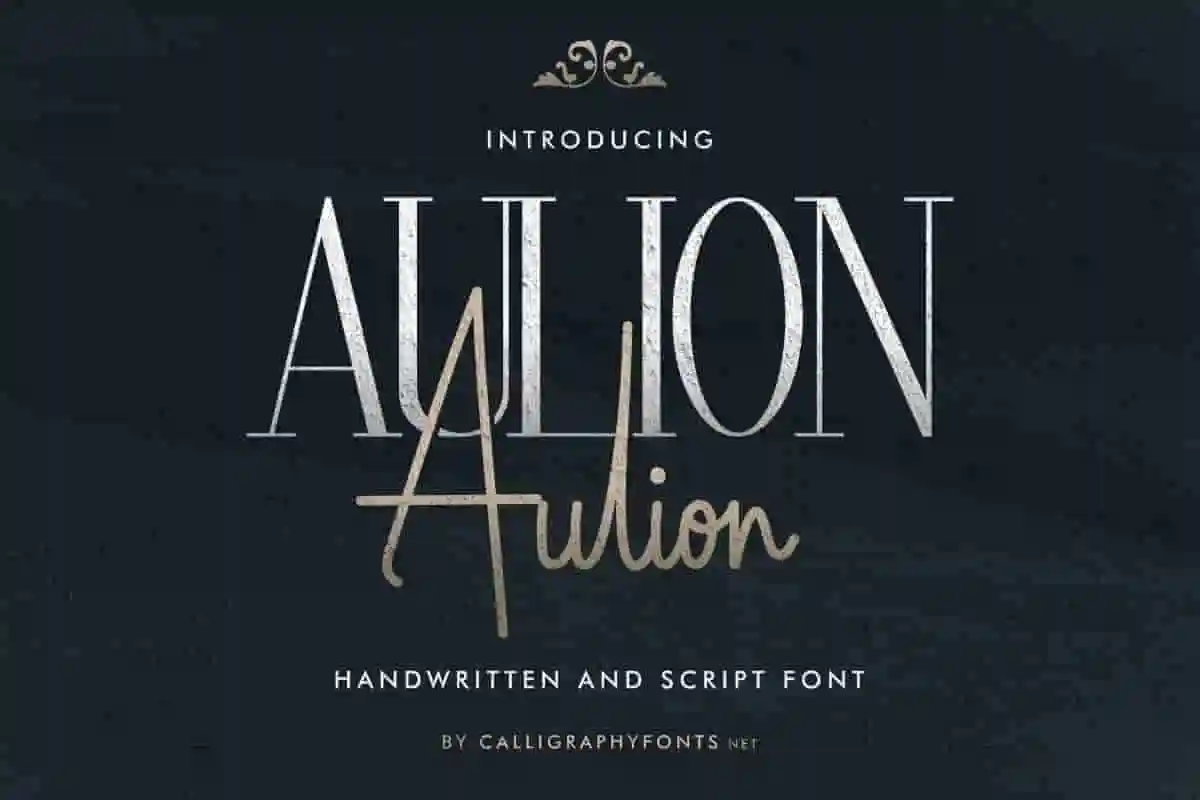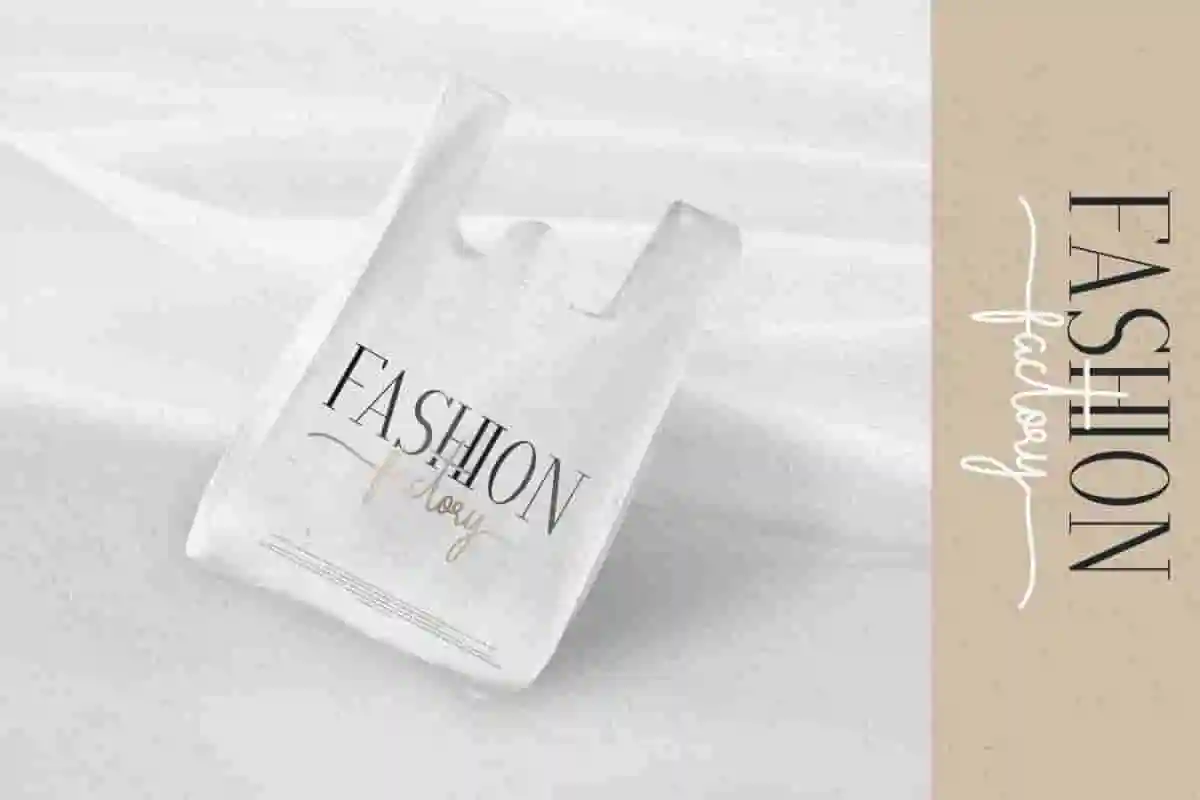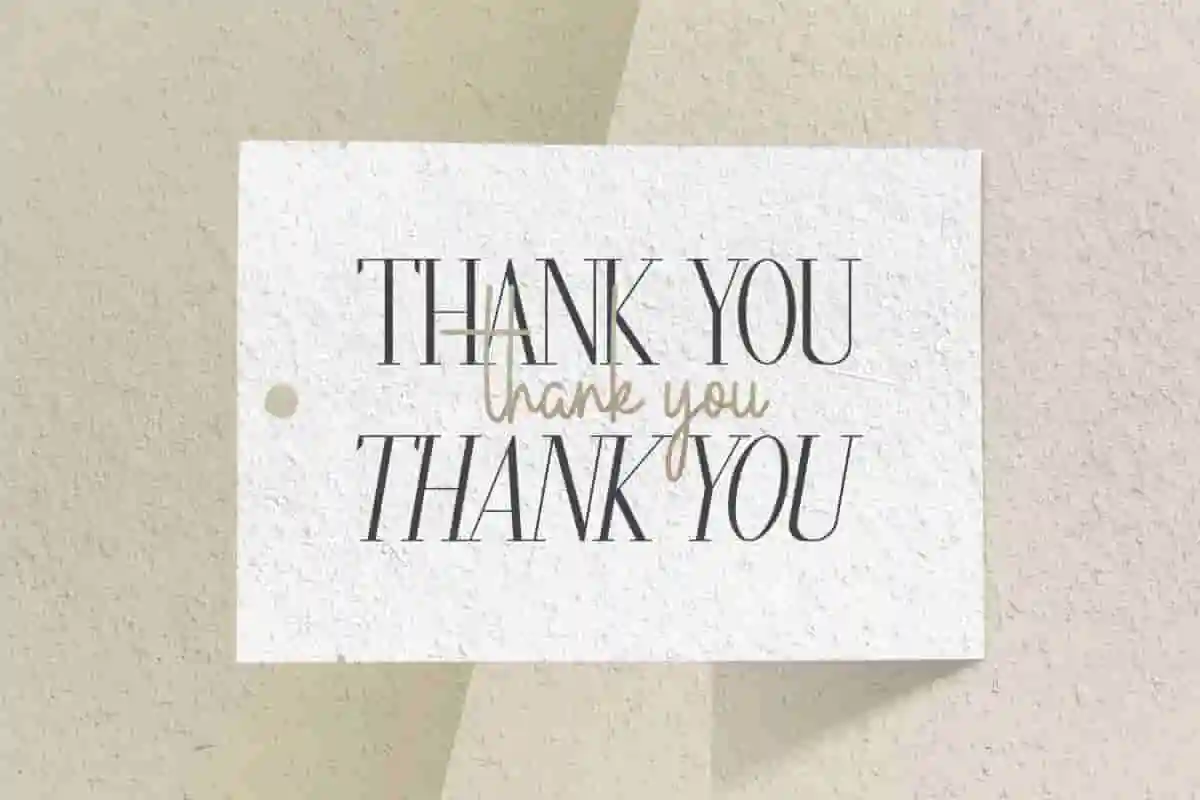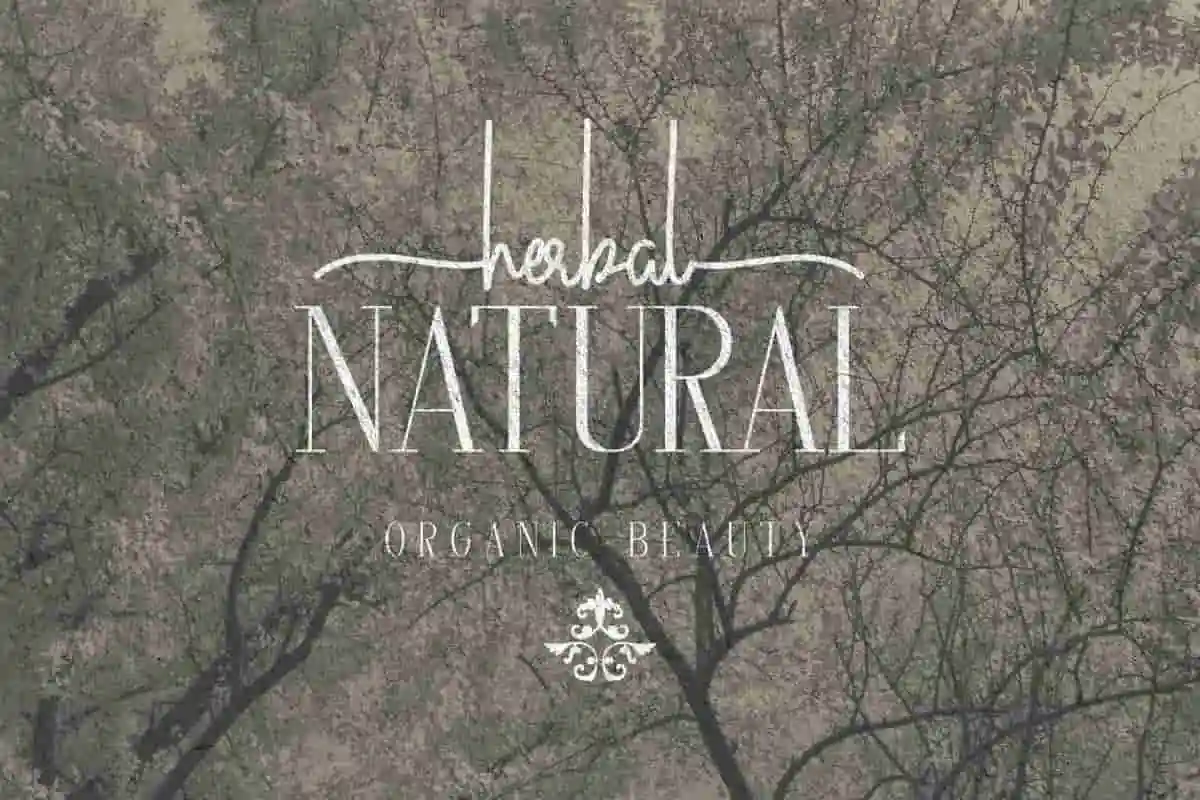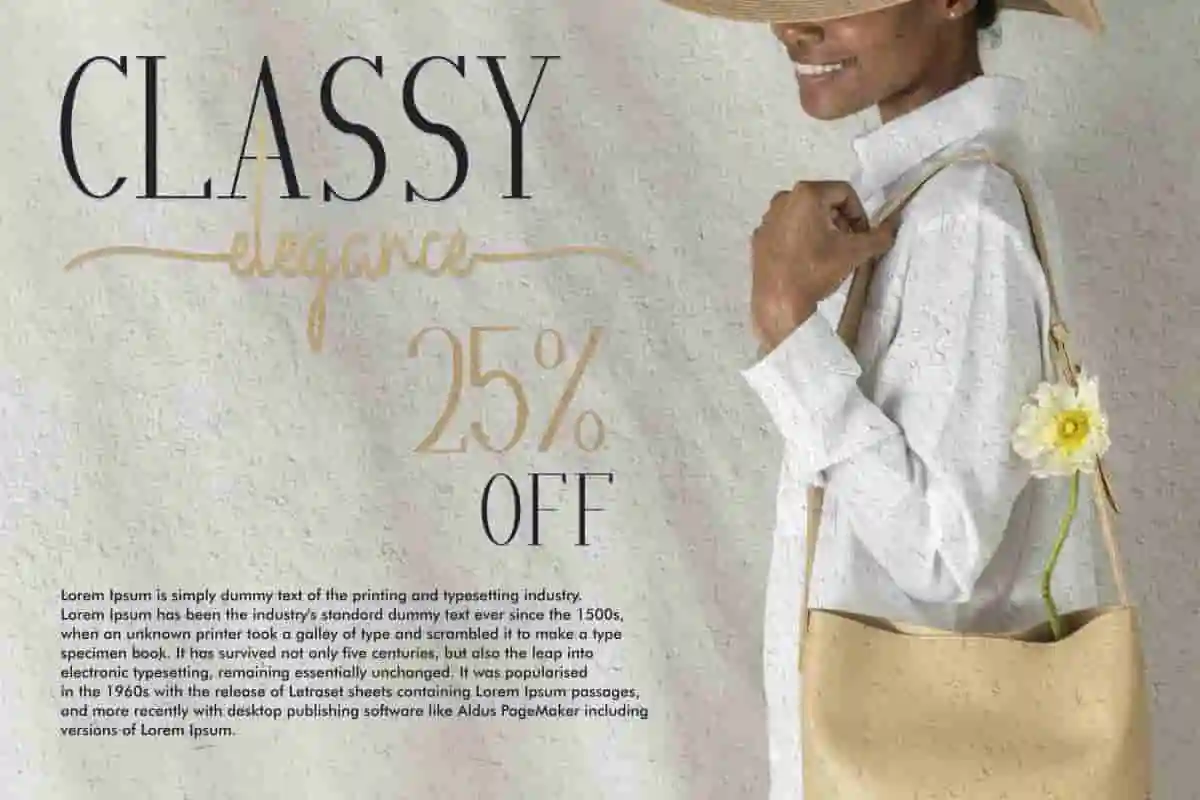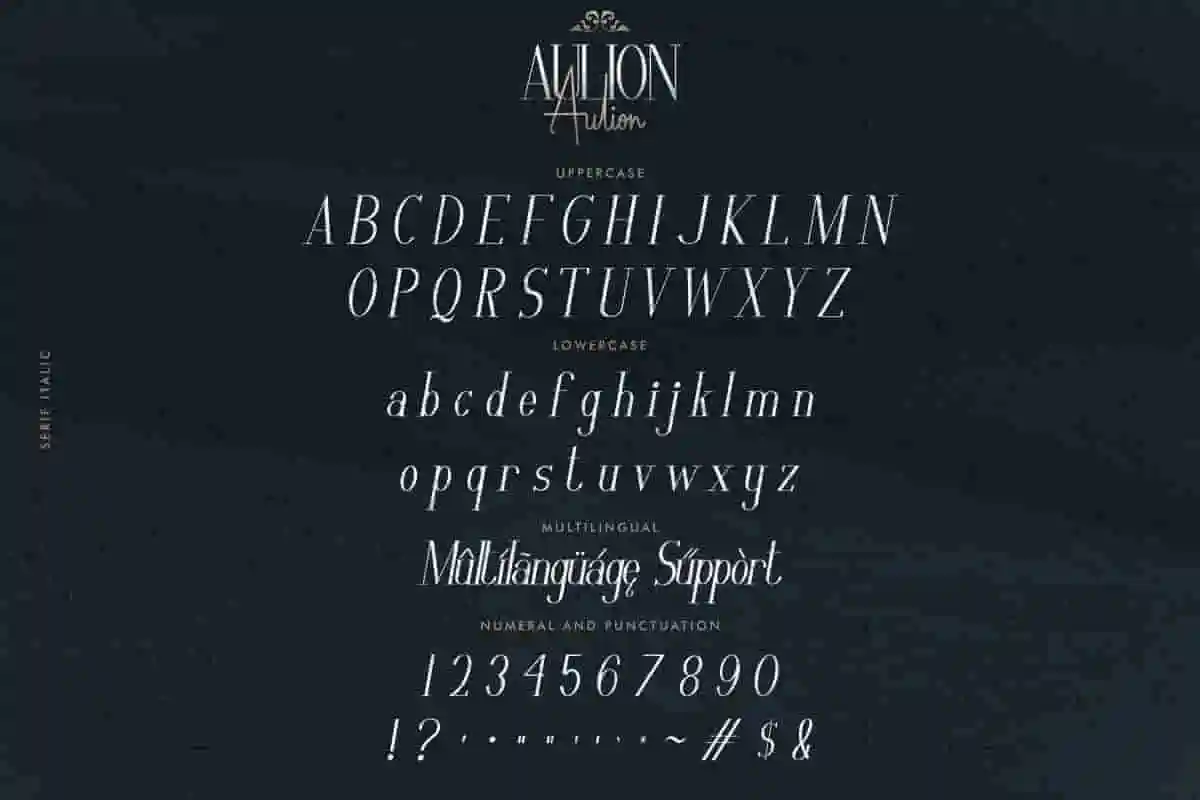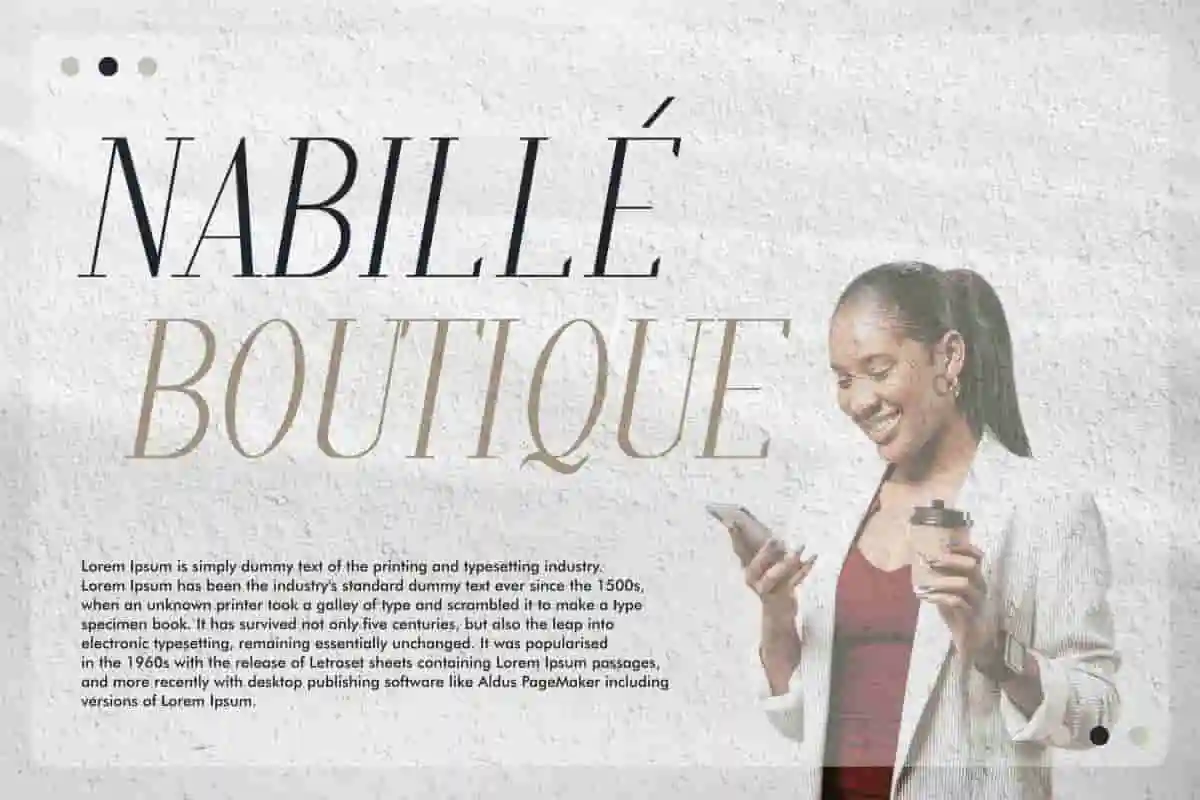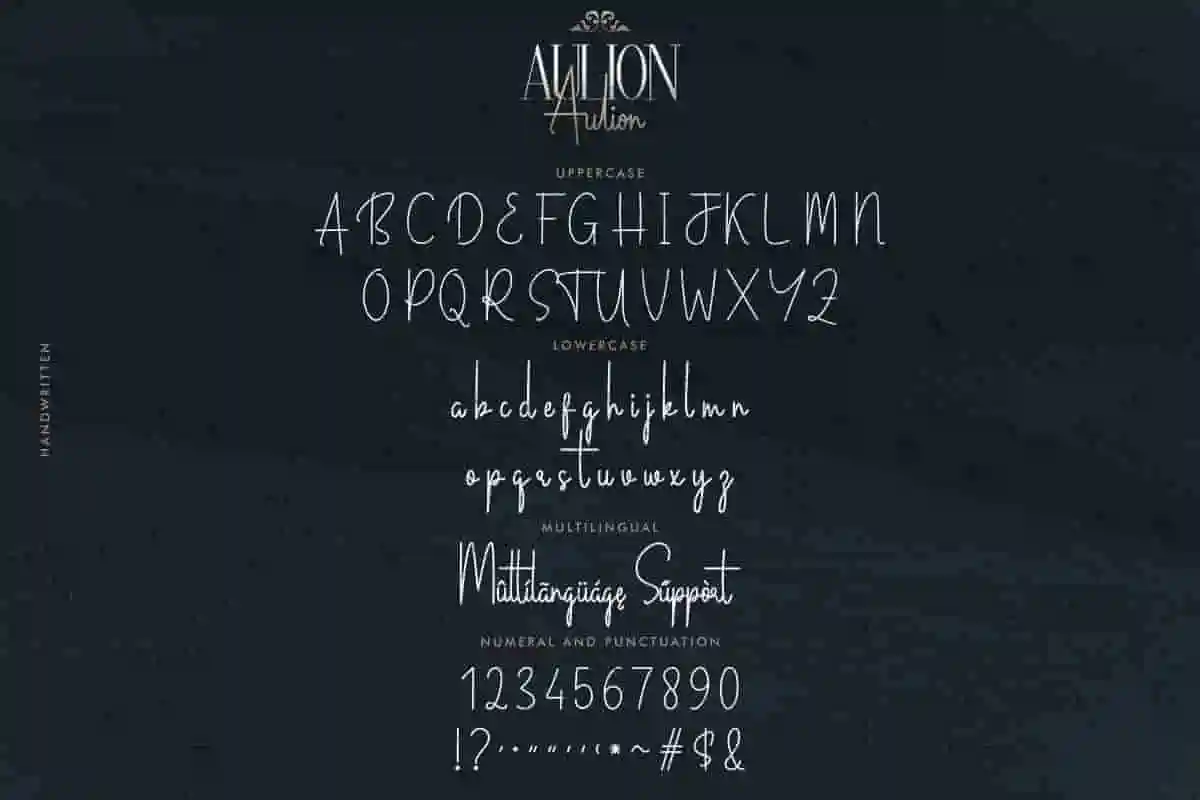
Aulion Font
Aulion is a Font Family with THREE different font styles : Sans, Italic and Handwriting font. The style of this font are signature, modern, elegant, luxury, glamour, classic and sophisticated lettering.